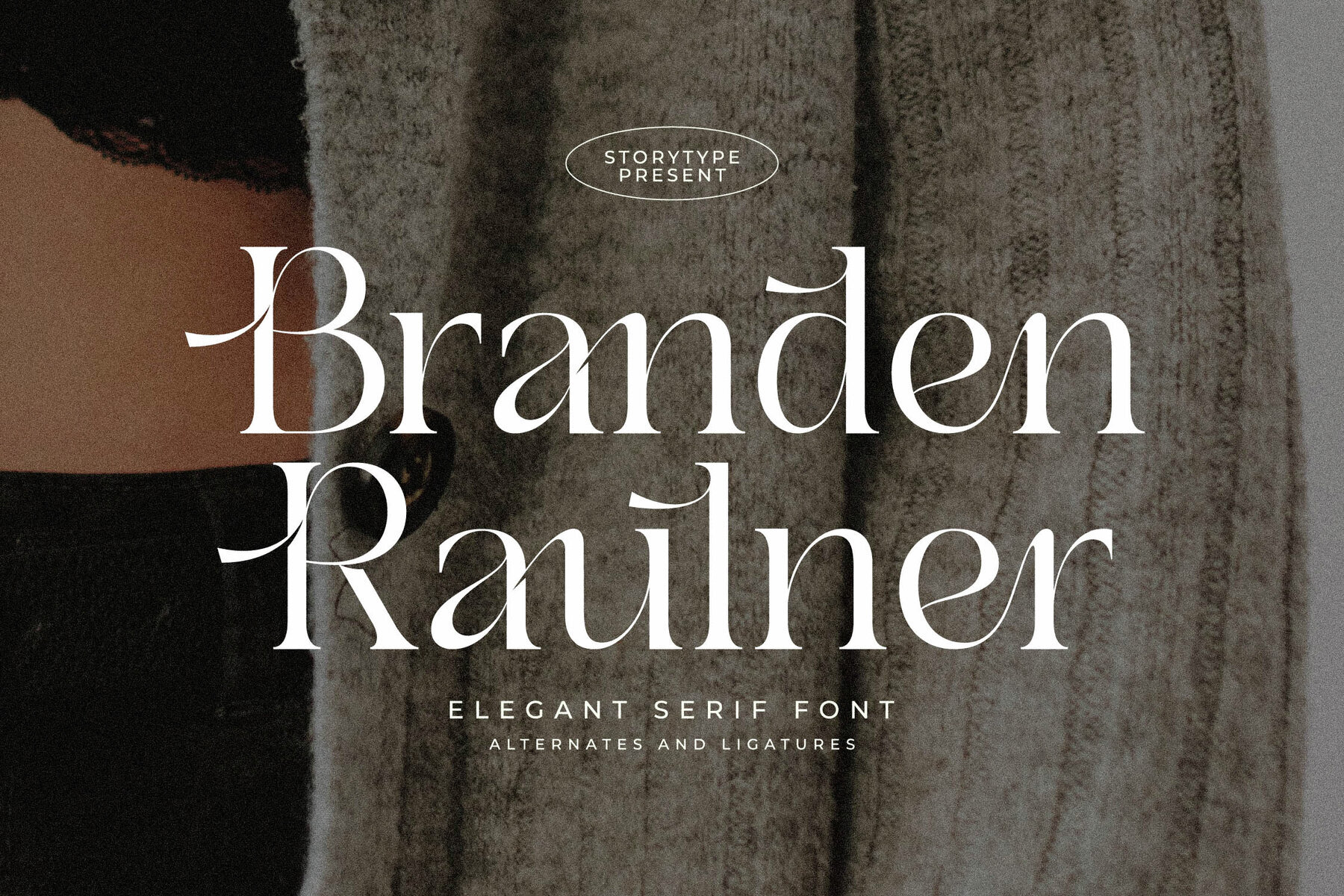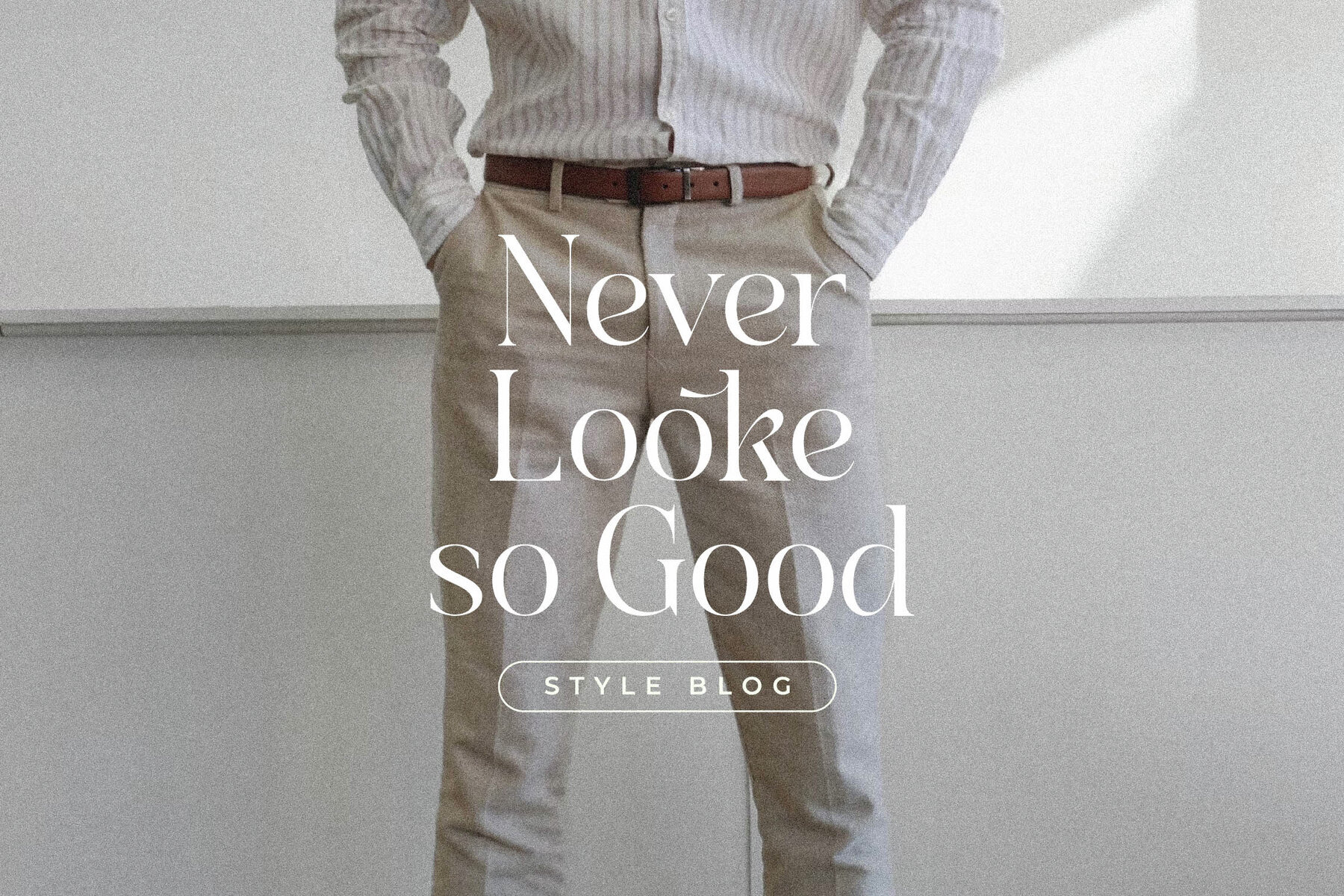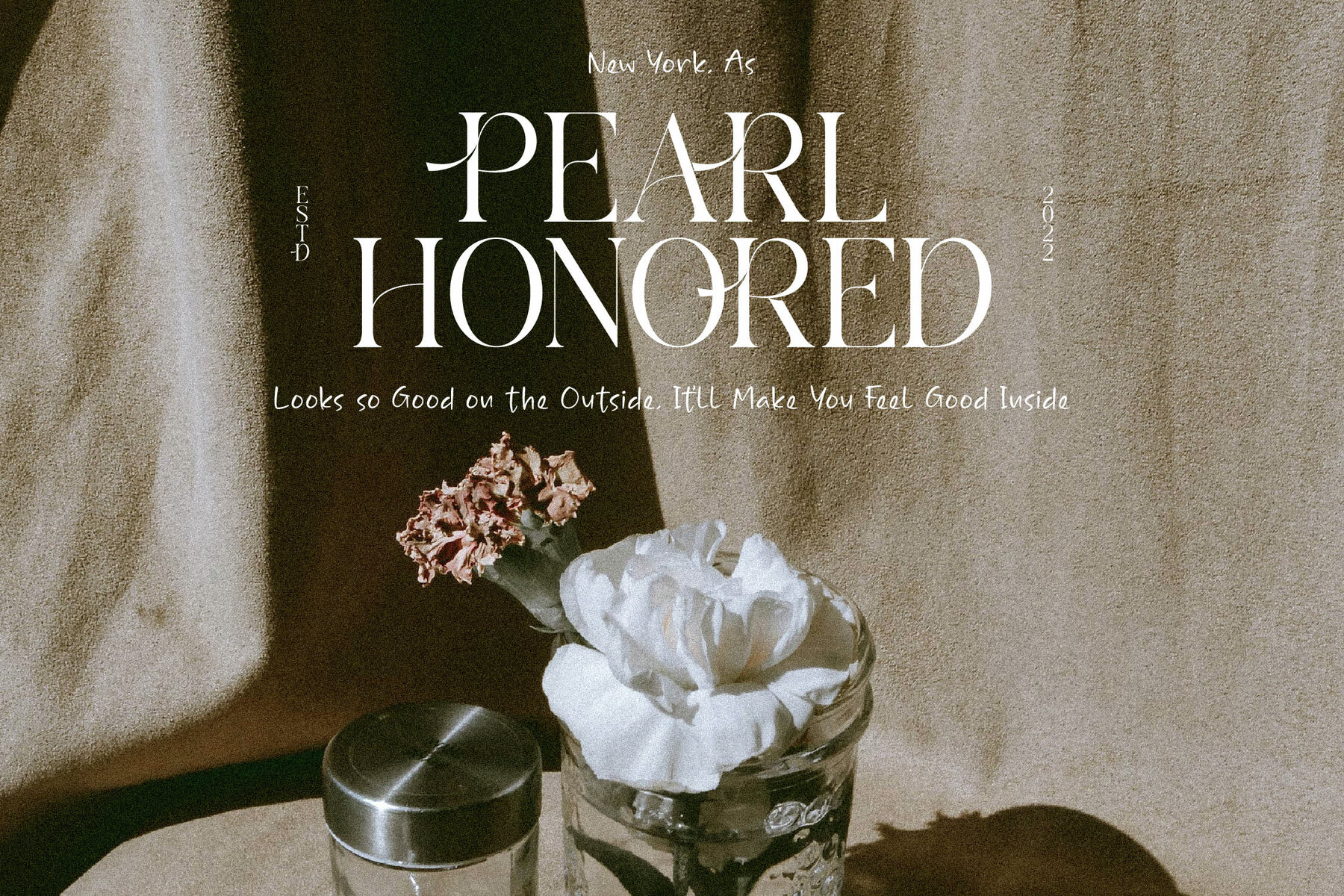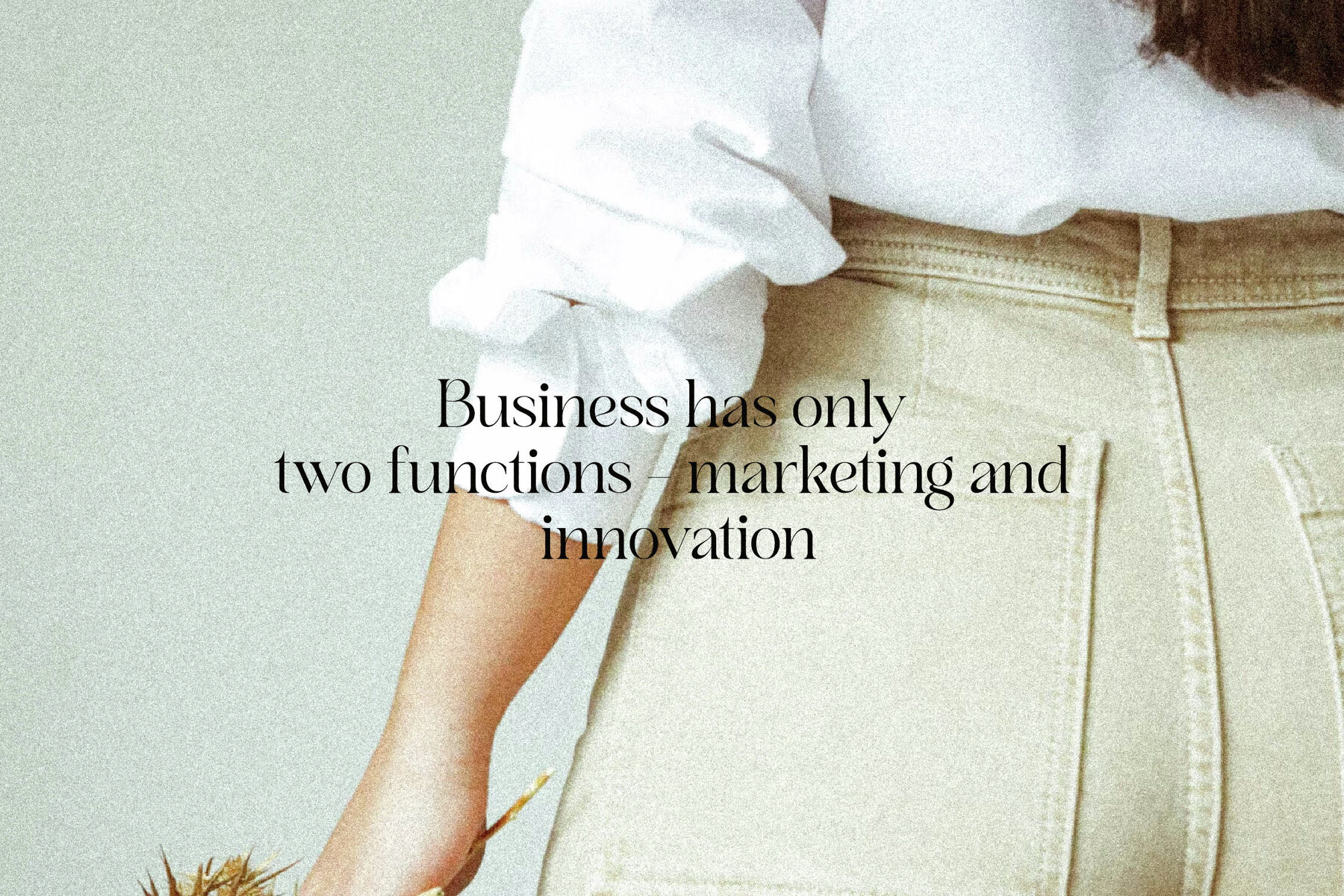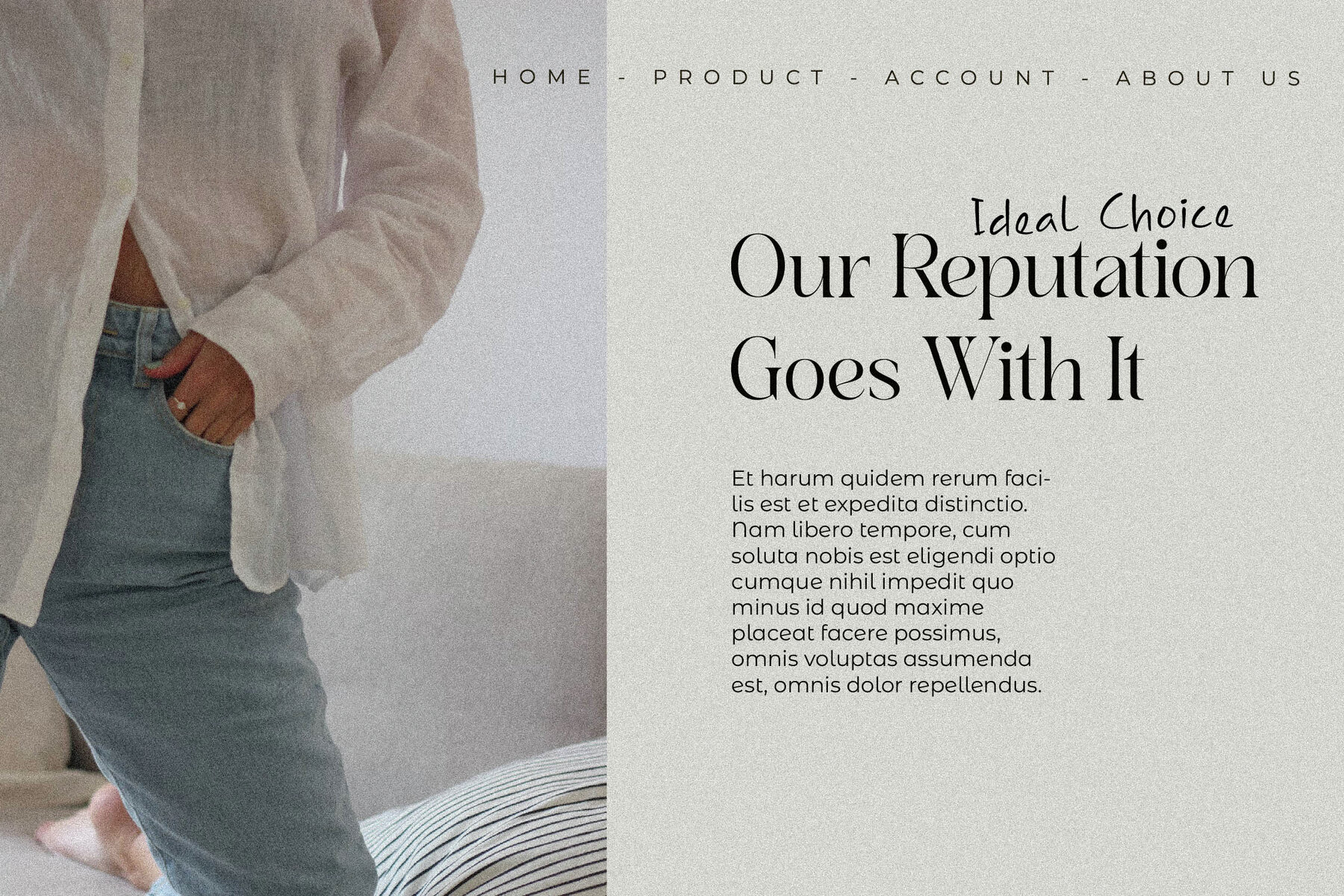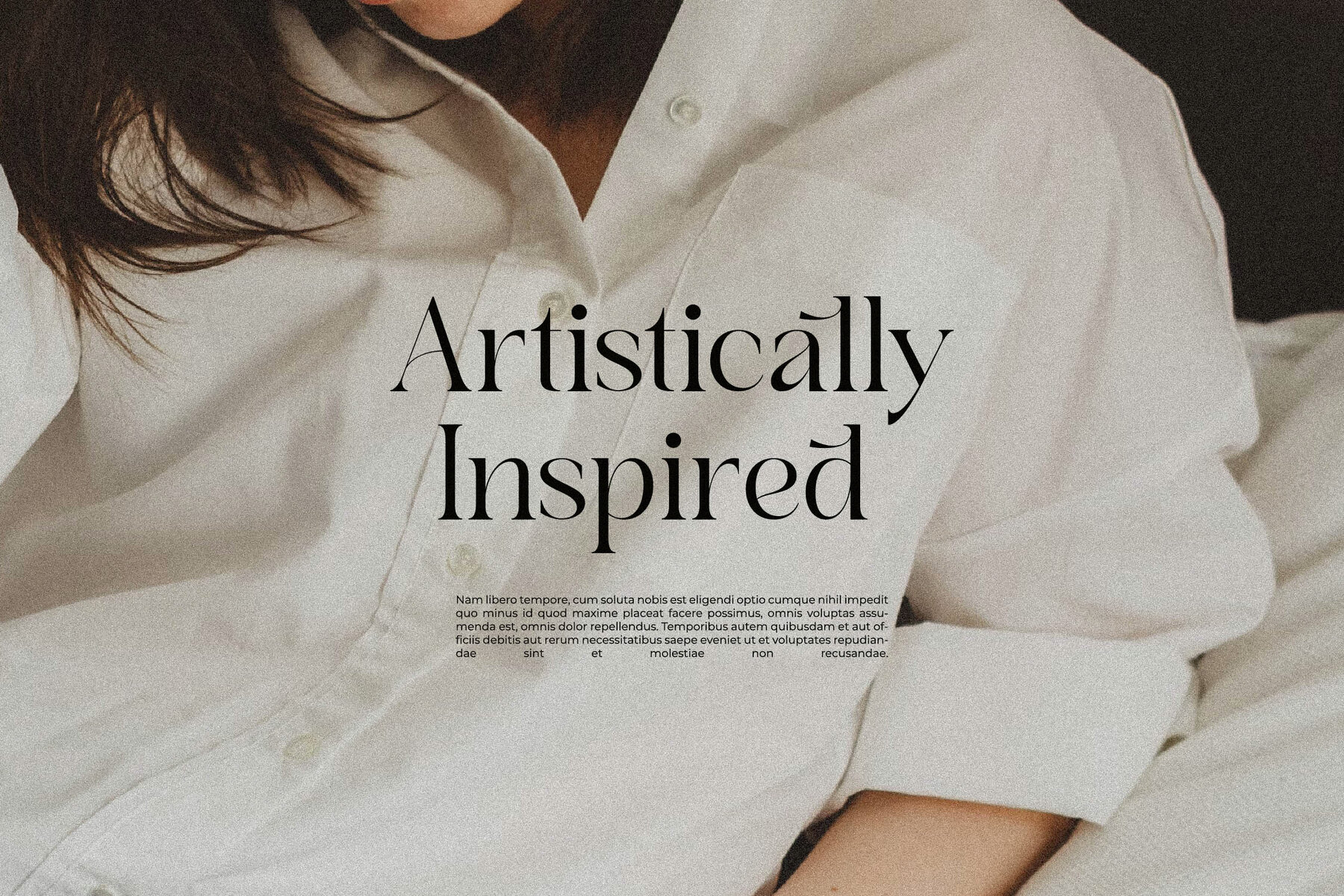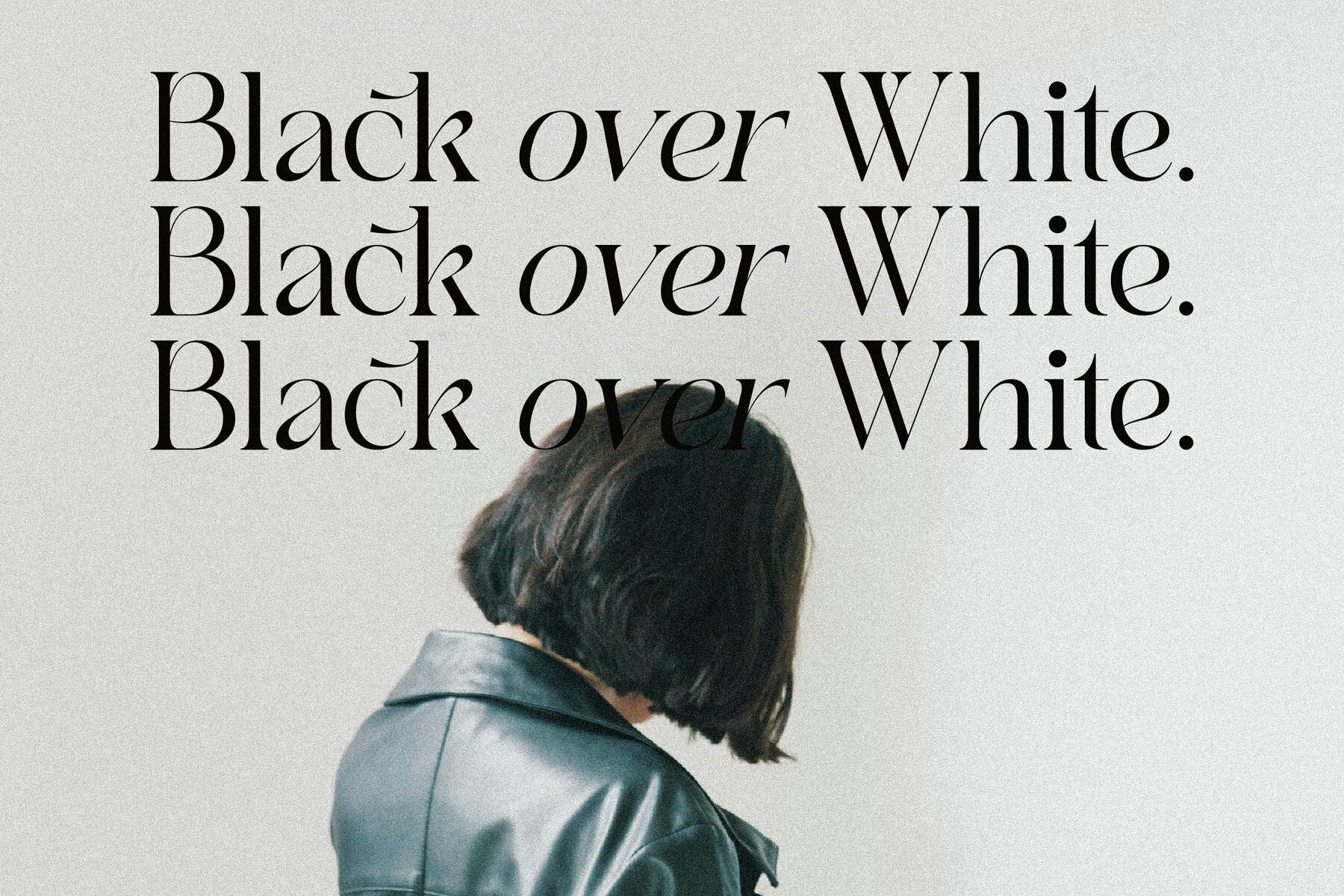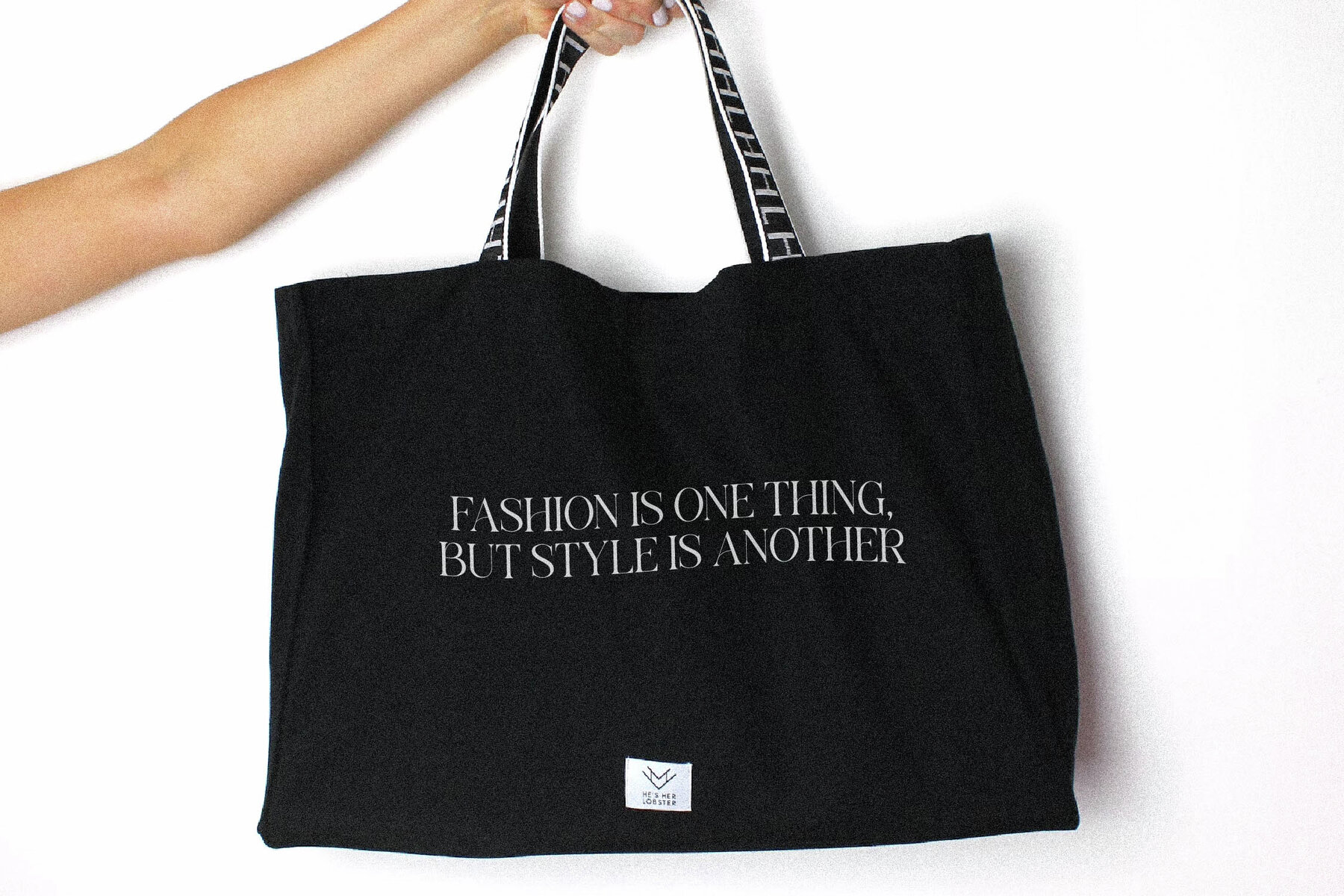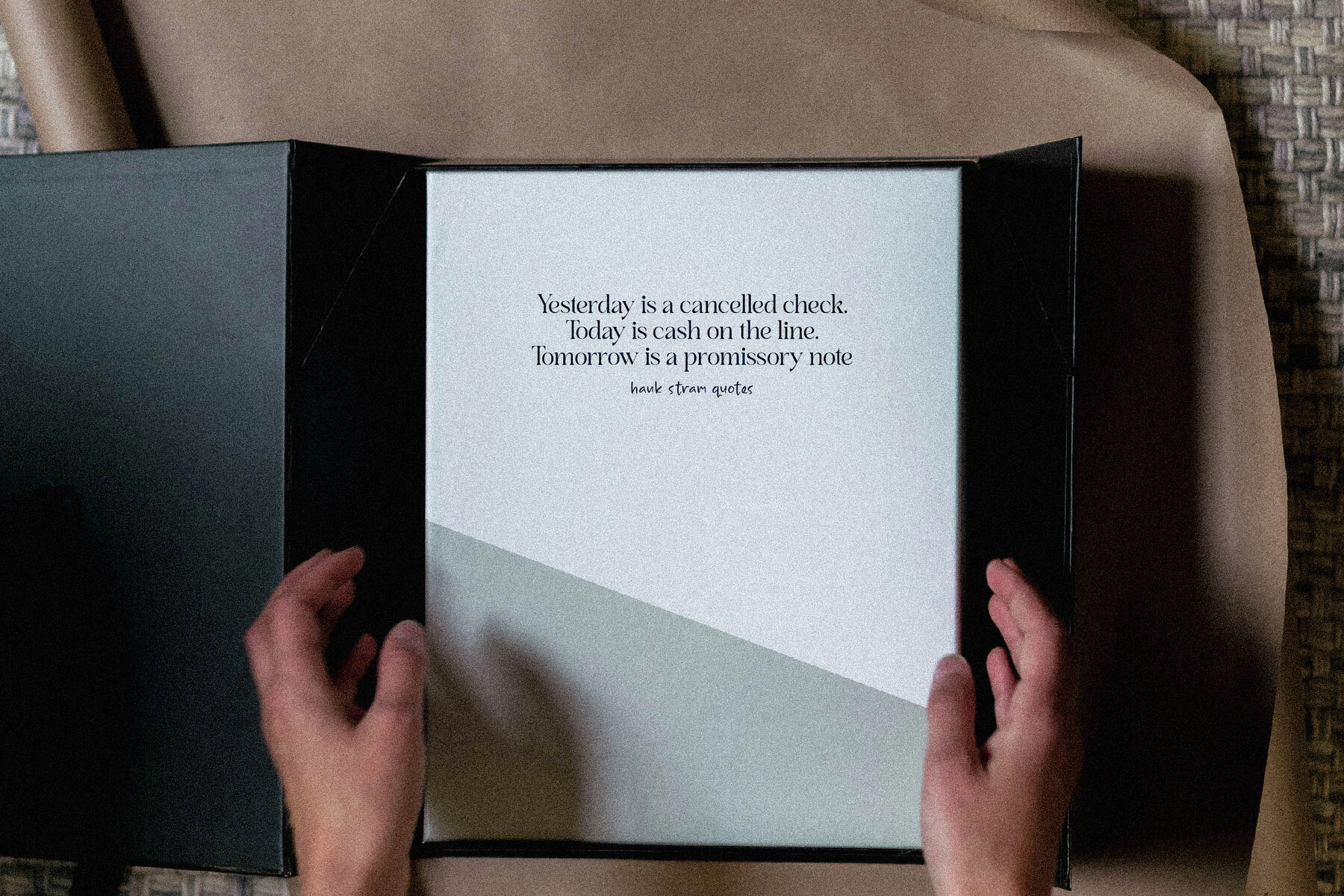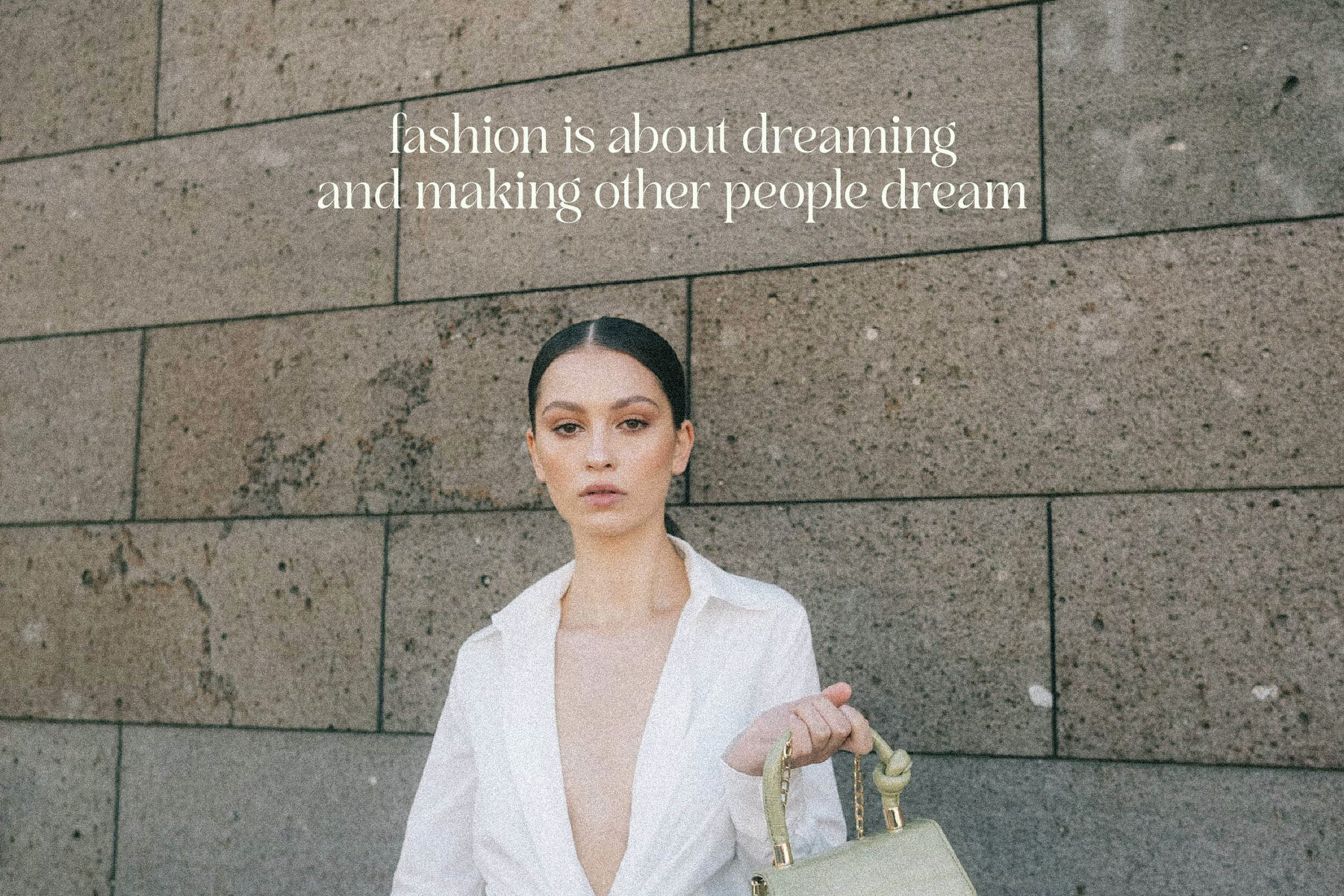
Branden Raulner Font
Introducing the sophisticated Branden Raulner Typeface by Storytype Studio, a perfect blend of modern and classic serif design. With its unique style, this typeface delivers a luxurious aesthetic, ideal for elevating logos, book and movie titles, fashion brands, magazines, and more. Branden Raulner Typeface